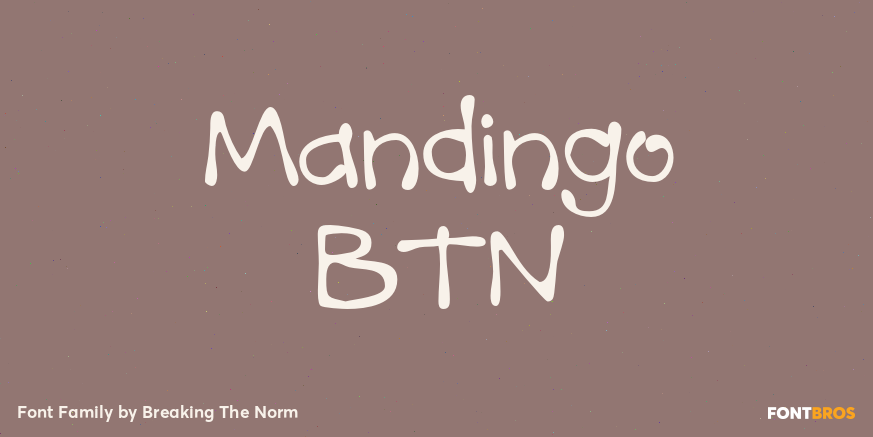
HomeFont BrosDistressedMandingo BTN DistressedWacky Mandingo BTN FacebookXPinterestWhatsApp 1 of 1 About Mandingo BTN Mandingo is a fun and flowing typestyle with a gummi-gooey look to it. Including variants in weight as well as widths, it offers a range of possibilities for use in fun and comic style designs.  DOWNLOAD ON FONT BROSThis font is sold and delivered by Font Bros. Font Canyon may earn a commission if you buy through this link. People also explored Anime Font Spring Vacation Font Telecast Lokananta Font Galvin Family Pack Font Smilicious Font Creative Sense Font Summer Rain Font Working Handmade Font 230 0 TagsMandingo BTN Font Previous articleSpicy Rice ProNext articleAkazan LEAVE A REPLY Cancel reply Comment: Please enter your comment! Name:* Please enter your name here Email:* You have entered an incorrect email address! Please enter your email address here Website: Save my name, email, and website in this browser for the next time I comment. Personal Use Free Manbow Personal Use Free Read more about this font Happy Rabbit Personal Use Free Read more about this font Cokobi Personal Use Free Read more about this font Rasiday Personal Use Free Read more about this font BLOG Free vs Paid Fonts: Why Investing in Premium Fonts Is Worth It Free vs Paid Fonts: Why Premium Fonts Are Worth It in 2025 The debate of free vs paid fonts continues in the design world. While... To increase your work productivity, choose the most readable fonts. Elegant Wedding Invitation Fonts – Handwritten & Script Fonts How to Cut Any Font on Cricut: Convert a Font to SVG (Free)